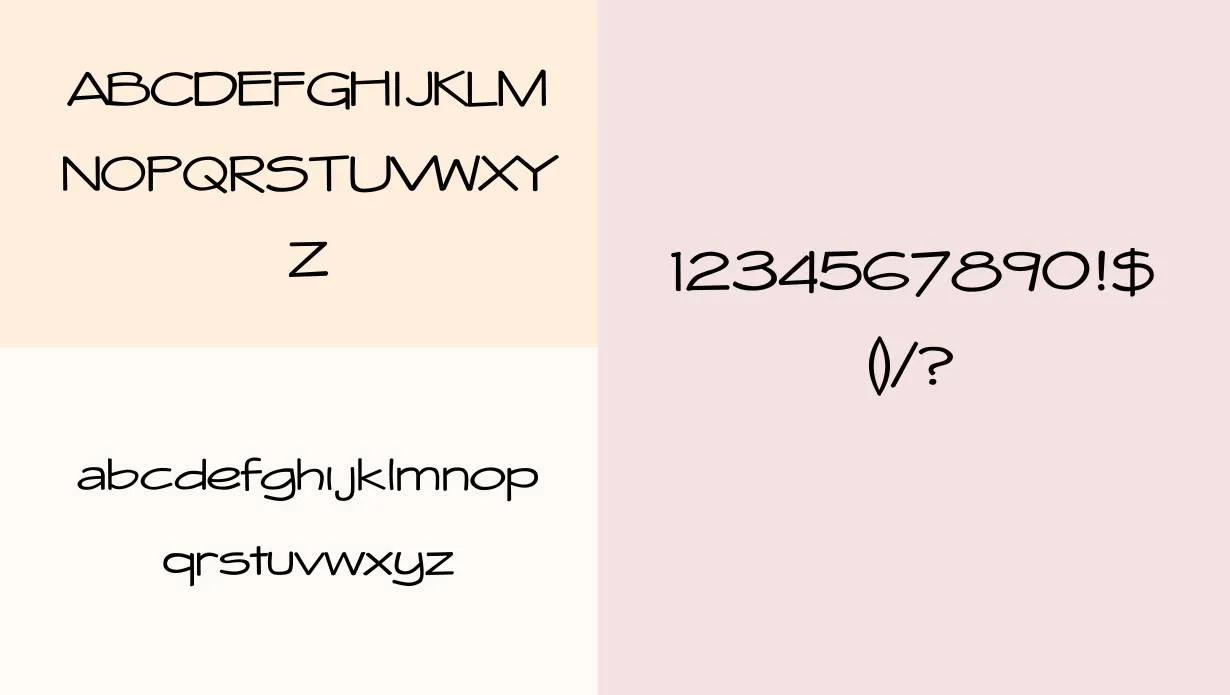
Whitehall Font combines elegance with simplicity, making it a perfect choice for refined and classic designs. Its clean characters add a touch of sophistication to invitations, branding, or any project requiring a timeless look.
| Name | Whitehall Font |
| Designer | Vic Fieger |